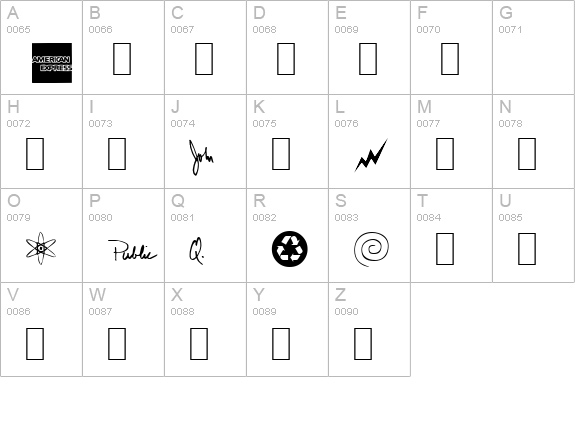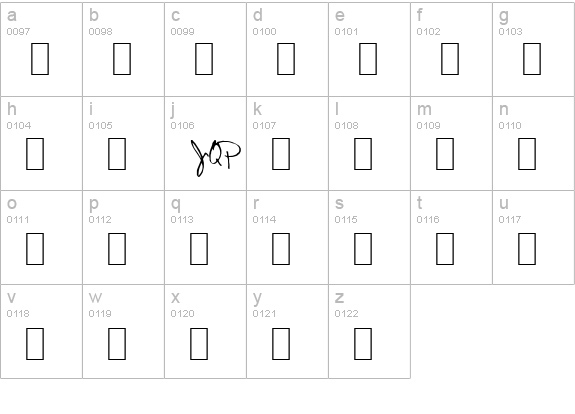
SGCF_Sig font is a stunning and unique typeface that adds a touch of elegance and sophistication to any design. With its graceful curves and delicate strokes, this font is an excellent choice for creating professional logos, wedding invitations, and other high-end projects. What sets SGCF_Sig font apart is not only its exquisite design but also the fact that it is available for free. Yes, you read that right - this incredible font can be downloaded without any cost at FontsMarket.com. This means that you can instantly enhance your designs with a premium-quality font without breaking the bank. Whether you are a graphic designer, a marketing professional, or a creative enthusiast, SGCF_Sig font is a must-have in your font collection. Its versatility allows it to shine in various contexts, from branding materials to social media graphics. Its legibility ensures that your message comes across loud and clear, while its elegance adds a touch of sophistication and class. The attention to detail in SGCF_Sig font is truly remarkable. Each letter is meticulously crafted to create a visual harmony that is pleasing to the eye. The flowing lines and intricate curves give this font a sense of movement and grace, making it perfect for projects that require a touch of refinement. With SGCF_Sig font, you can unleash your creativity and bring your designs to life. Whether you are designing a logo for a luxury brand or creating a visually stunning poster, this font will effortlessly elevate your work to new heights. Its timeless beauty ensures that it will remain a staple in your design arsenal for years to come. Don't miss out on the opportunity to add SGCF_Sig font to your collection. Visit FontsMarket.com today and download this incredible font for free. Discover the power of this exquisite typeface and take your designs to the next level.